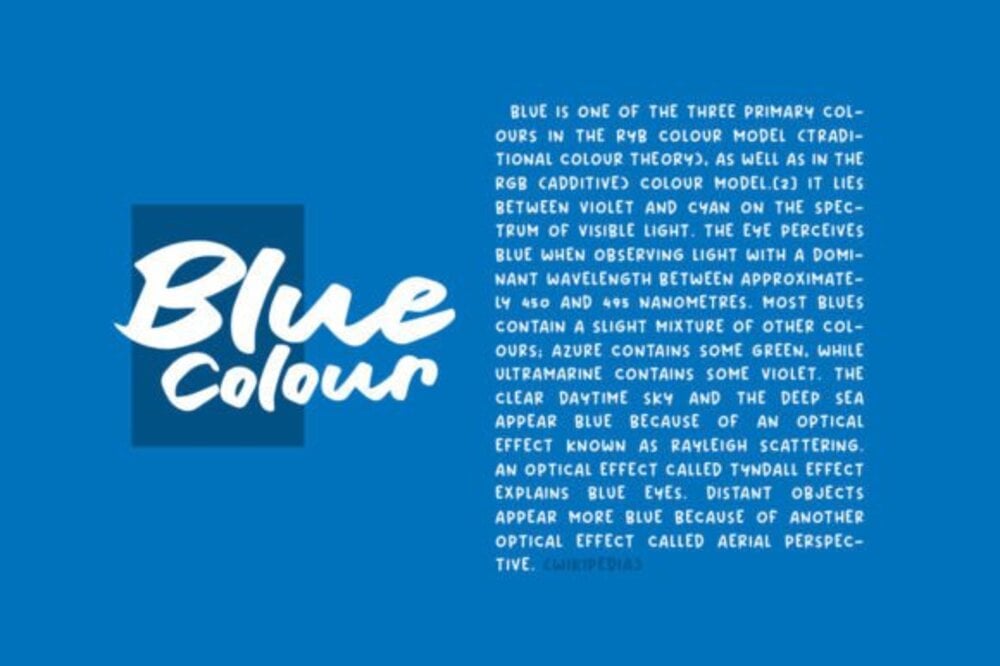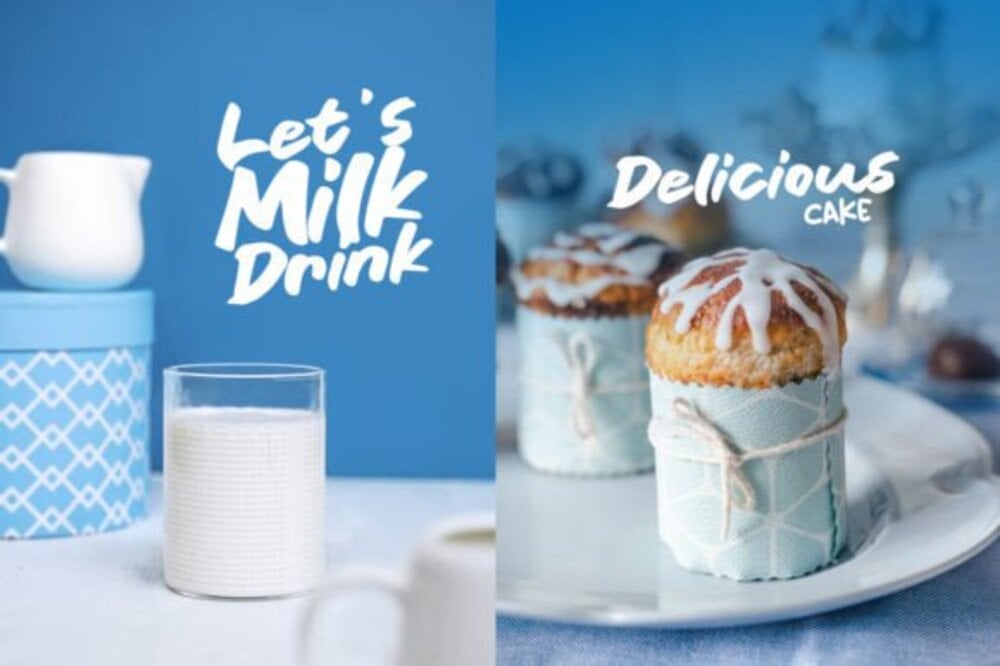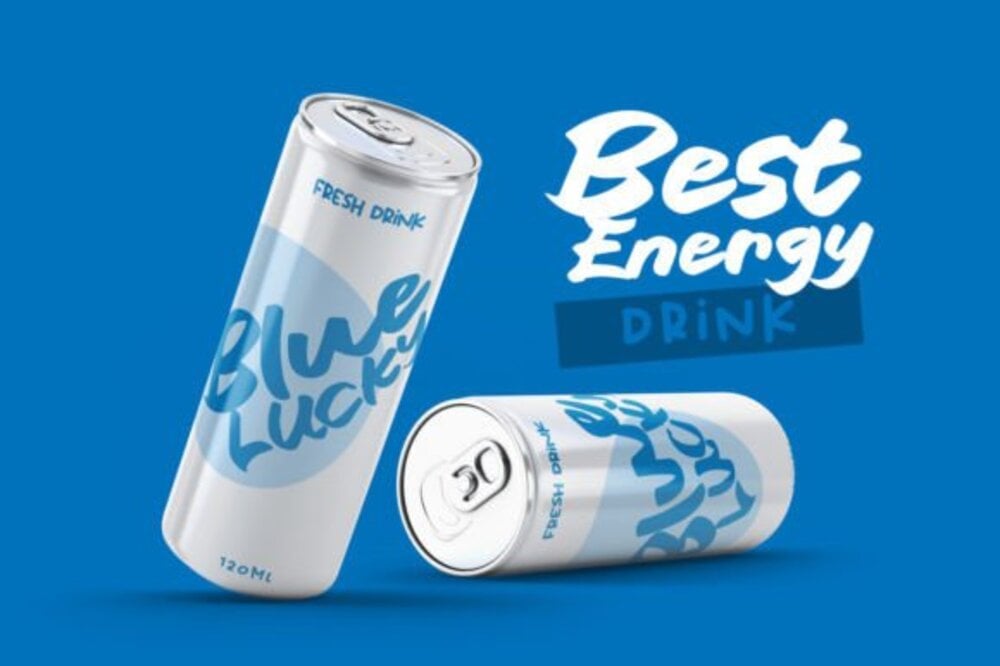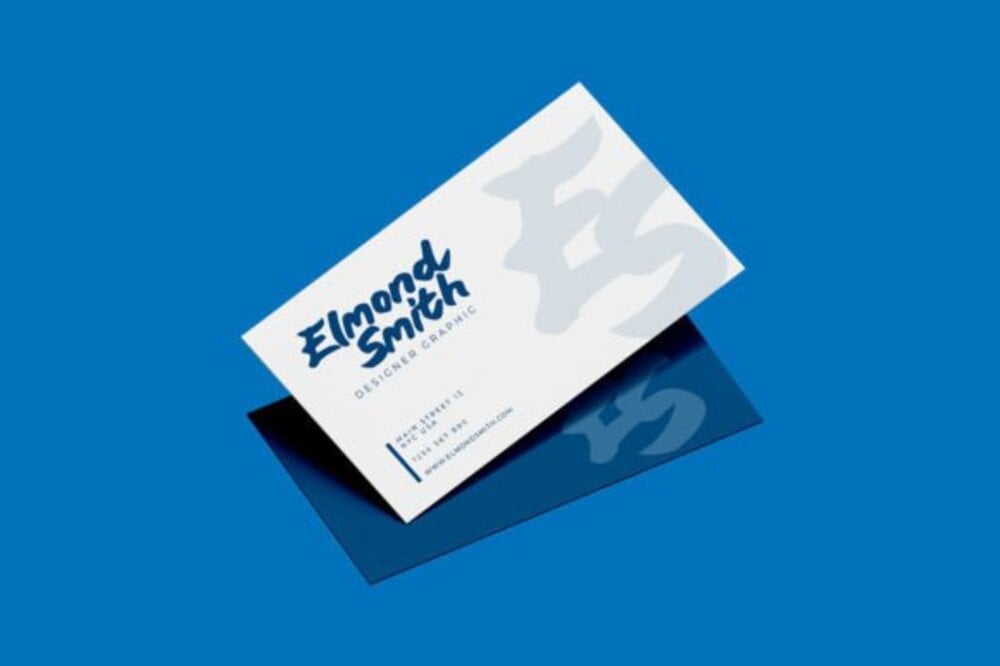
Block Ride Font
Block Ride is a bold, geometric sans-serif font with a retro-futuristic feel. Its strong, blocky letterforms evoke a sense of classic arcade games and 80s design. Perfect for headlines, posters, and branding that demands attention, Block Ride brings a touch of nostalgic cool. It’s ideal for projects seeking a modern, urban, or tech-inspired aesthetic, adding a distinct, edgy vibe.